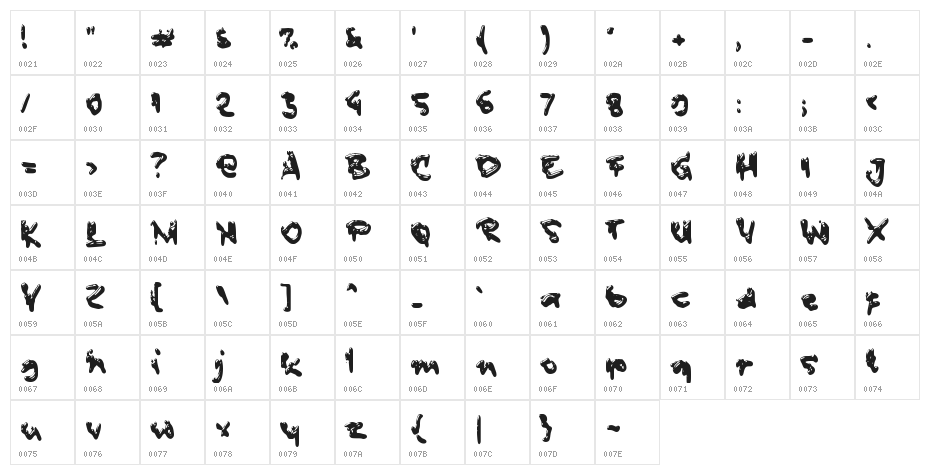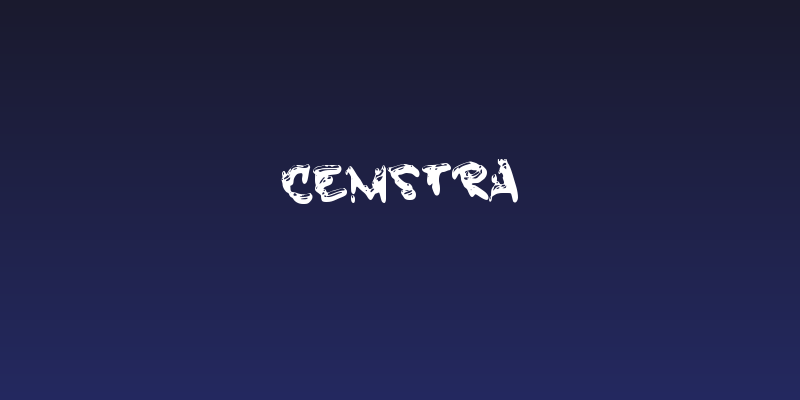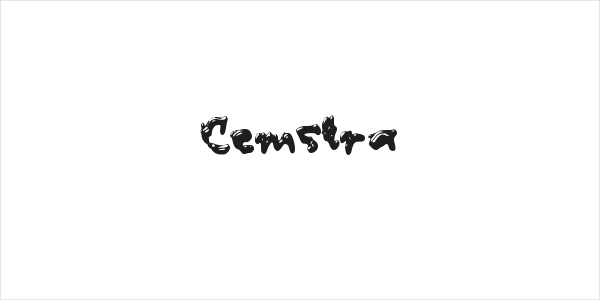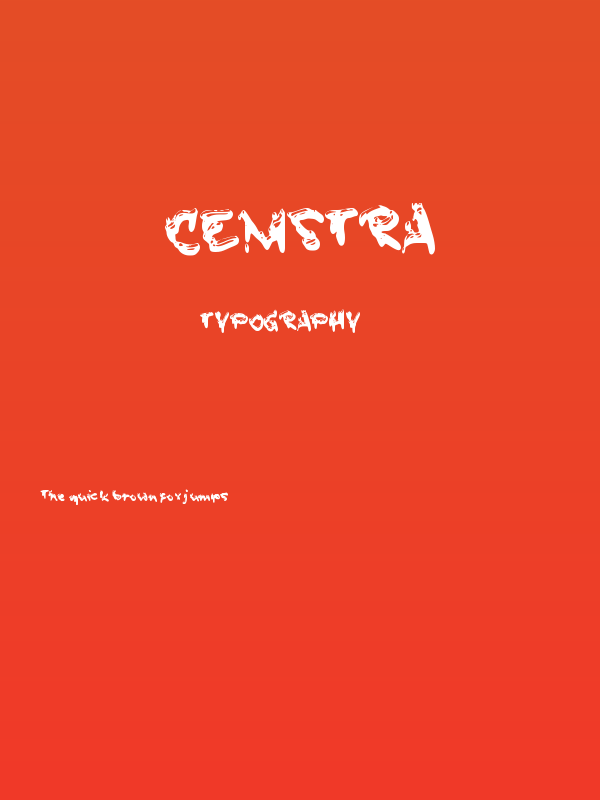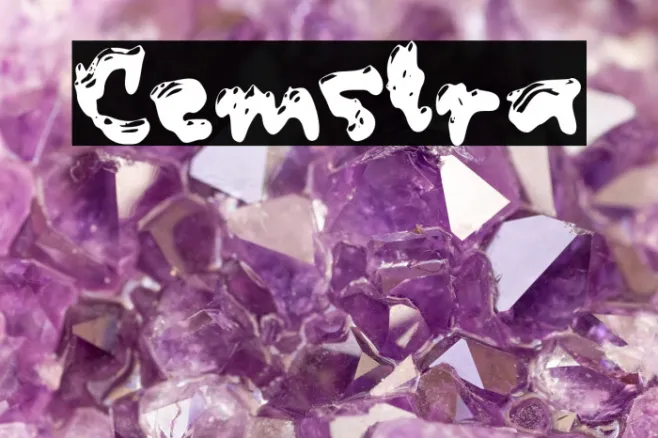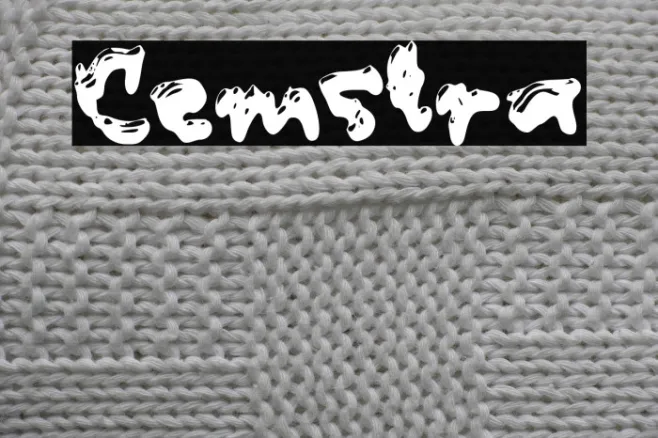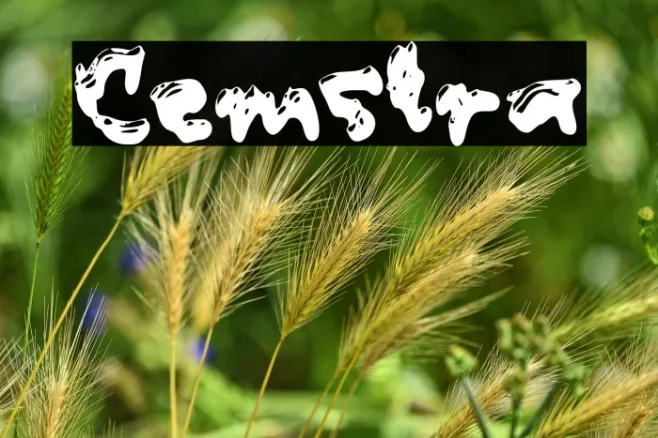
Cemstra Font
Cemstra Description
This font features a bold, expressive style with a hand-drawn appearance. Each character is uniquely crafted with a playful, artistic flair, resembling brush strokes or ink splatters. The letters have a dynamic, fluid quality, with varying thicknesses and irregular edges that give it a lively and energetic feel. The uppercase and lowercase letters maintain a consistent style, while the numbers and special characters integrate seamlessly with the overall design. This font's distinctive look makes it ideal for creative projects that require a touch of personality and vibrancy.
| Proposed Projects | Ideal for posters, album covers, artistic branding, and creative social media graphics. |